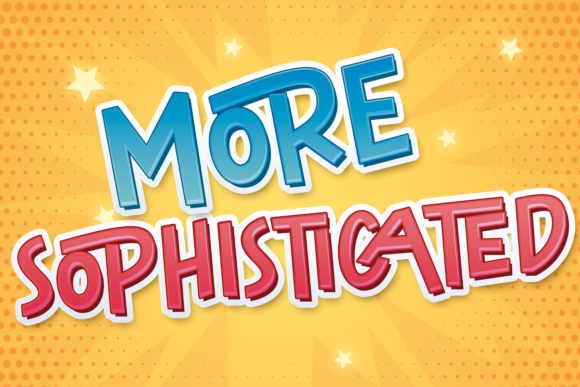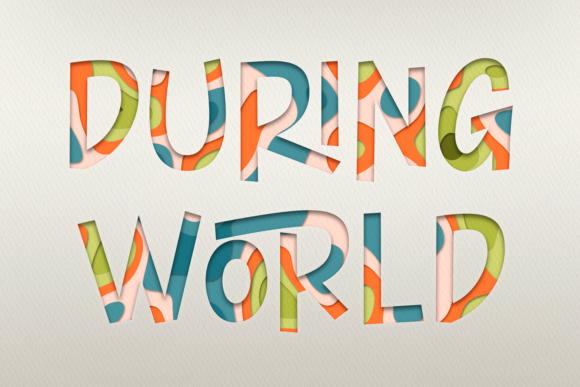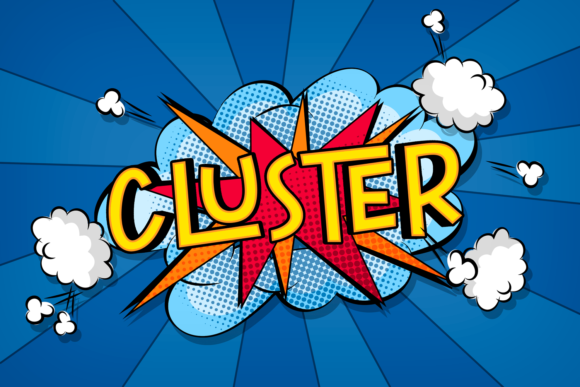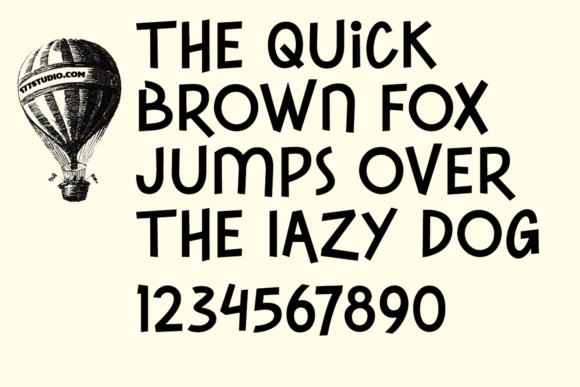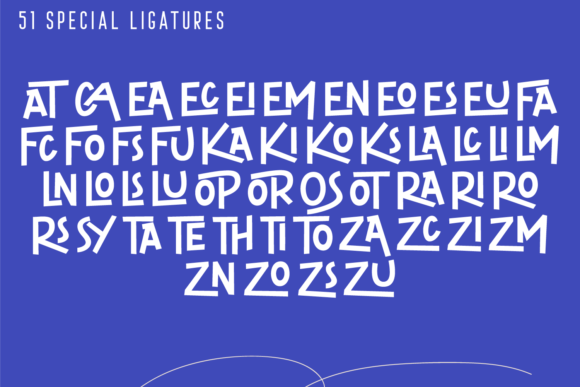
Introducing Central Processing Font: A Unique Display Font for Creative Projects
In the world of typography, a font can make or break a design. It’s the foundation upon which the entire visual identity of a project is built. For designers and crafters looking to add a touch of personality to their work, Central Processing Font is an exciting new option. This dense display font is designed with uneven edges and a dancing baseline, giving it a playful and communicative feel that’s sure to capture attention.
What Sets Central Processing Font Apart
Central Processing Font is not your average font. Its unique design features uneven edges and a dancing baseline, which creates a vivid impression that’s both kind and playful. This font is perfect for designers who want to add a touch of whimsy to their projects, or for crafters who want to create eye-catching titles and headings. Whether you’re working on a branding project, a website, or a craft project, Central Processing Font is sure to make a statement.
One of the best features of Central Processing Font is that it’s PUA (Private Use Area) encoded. This means that you can access all glyphs and swashes with ease, giving you maximum flexibility and creative control. With PUA encoding, you can easily insert special characters and swashes into your text, allowing you to customize your design and make it truly unique.
Central Processing Font is versatile and can be used for a wide range of projects. Here are just a few ideas to get you started:
- Branding and logos: Use Central Processing Font to create a unique and memorable logo that sets your brand apart.
- Web design: Add a touch of personality to your website with Central Processing Font, perfect for headings, titles, and other display text.
- Crafting and DIY projects: Use Central Processing Font to create eye-catching titles and headings for your craft projects, such as scrapbooking, card making, and more.
- Social media graphics: Stand out on social media with Central Processing Font, perfect for creating engaging graphics and posts.
Tips for Using Central Processing Font
Here are a few tips for getting the most out of Central Processing Font:
- Experiment with different sizes: Central Processing Font looks great in a variety of sizes, from large display text to smaller body text.
- Play with swashes and glyphs: Take advantage of the PUA encoding and experiment with different swashes and glyphs to add visual interest to your text.
- Mix and match with other fonts: Central Processing Font pairs well with a variety of other fonts, so don’t be afraid to experiment with different combinations.
Central Processing Font is a unique and versatile display font that’s perfect for designers and crafters looking to add a touch of personality to their projects. With its uneven edges, dancing baseline, and PUA encoding, this font is sure to make a statement. Whether you’re working on a branding project, a website, or a craft project, Central Processing Font is a great choice. So why not give it a try and see what creative possibilities you can explore?
- Dense display font with uneven edges and dancing baseline
- Perfect for branding, web design, crafting, and social media graphics
- Versatile and can be used for a wide range of projects